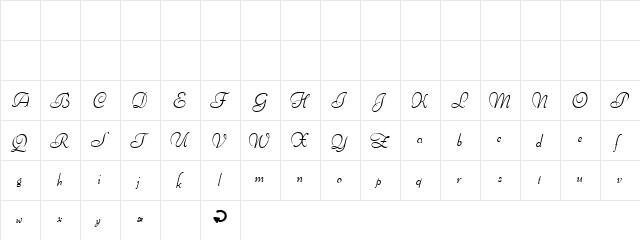
Ithuriel Demo Regular
Design Context for Ithuriel Demo Typeface
Ithuriel Demo takes a measured approach to typography — its balanced proportions and neutral character make it a reliable workhorse for both digital and print work.